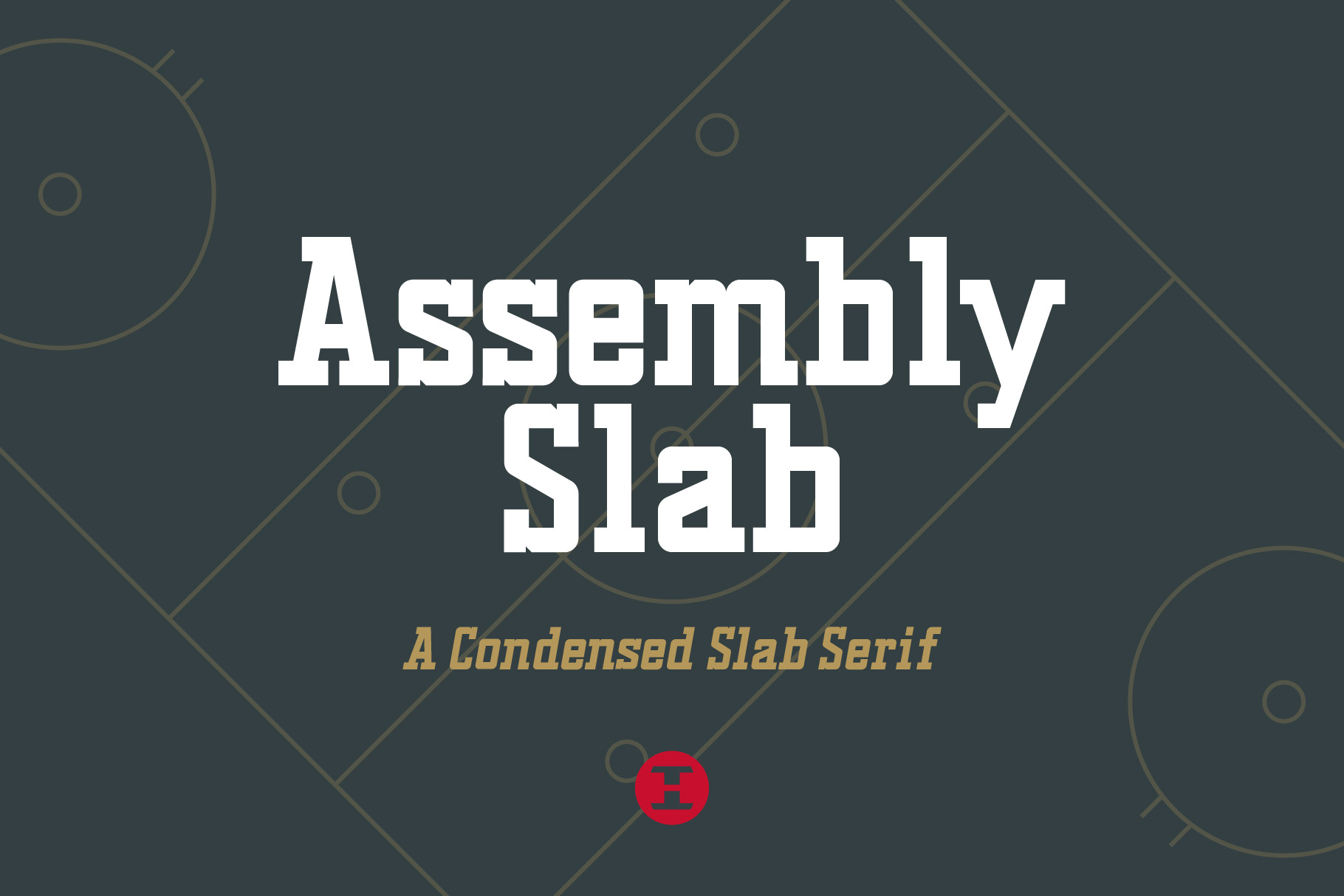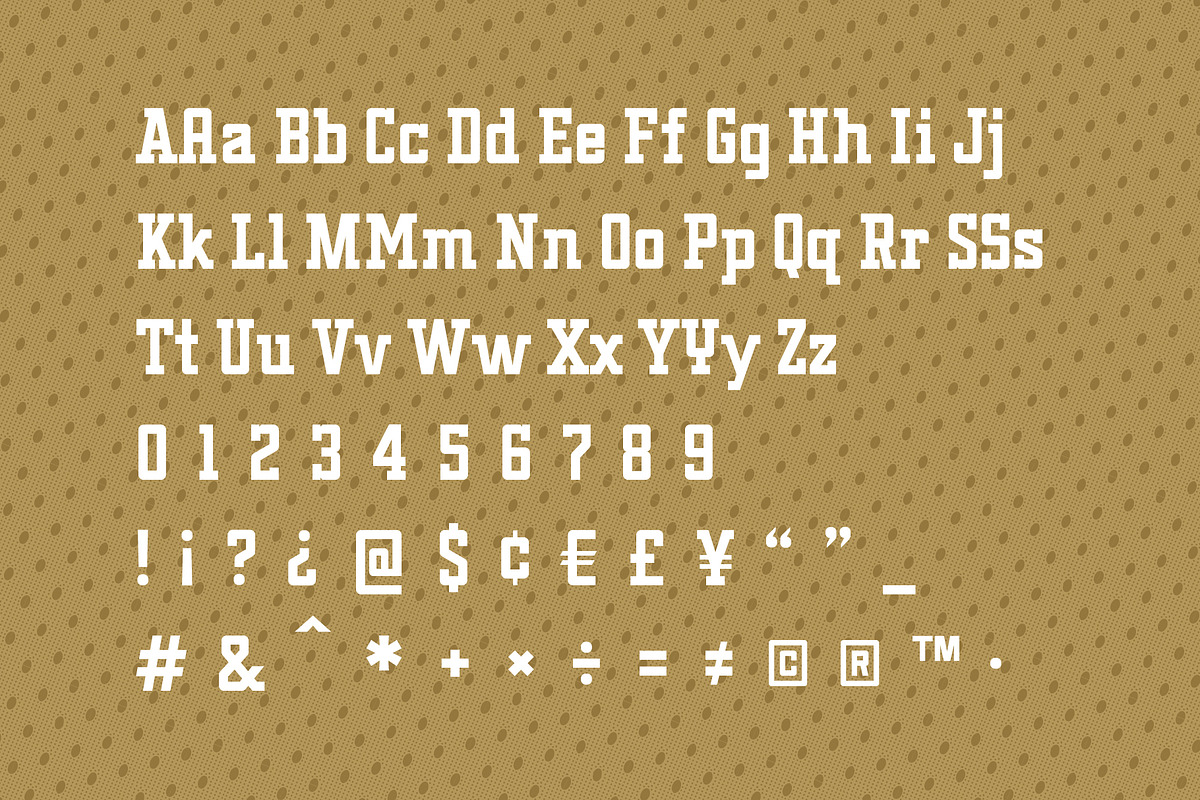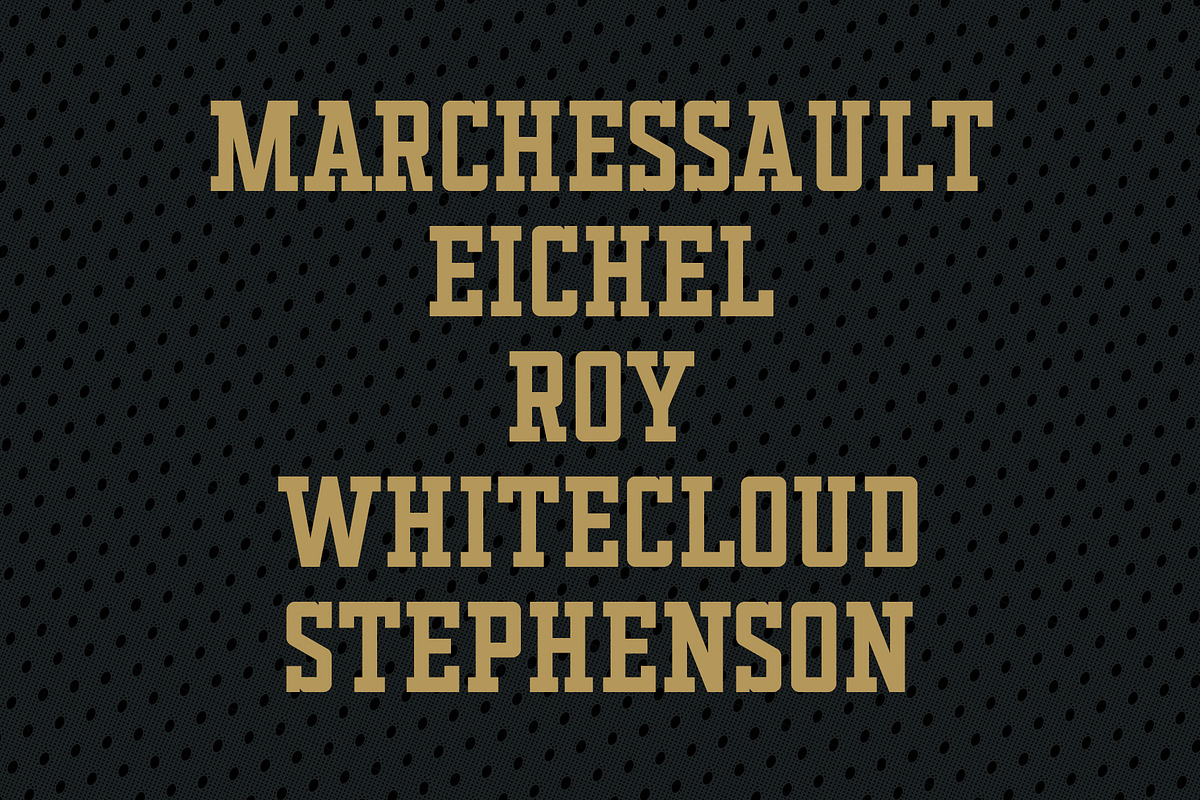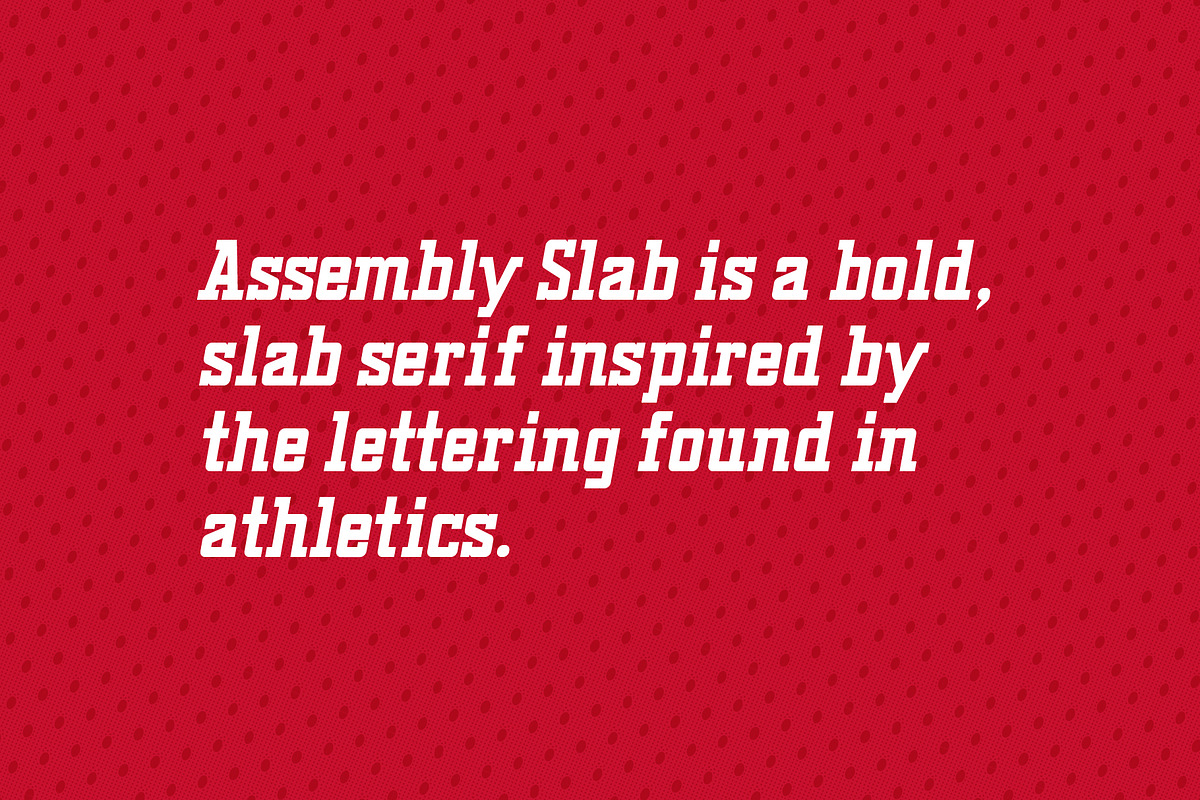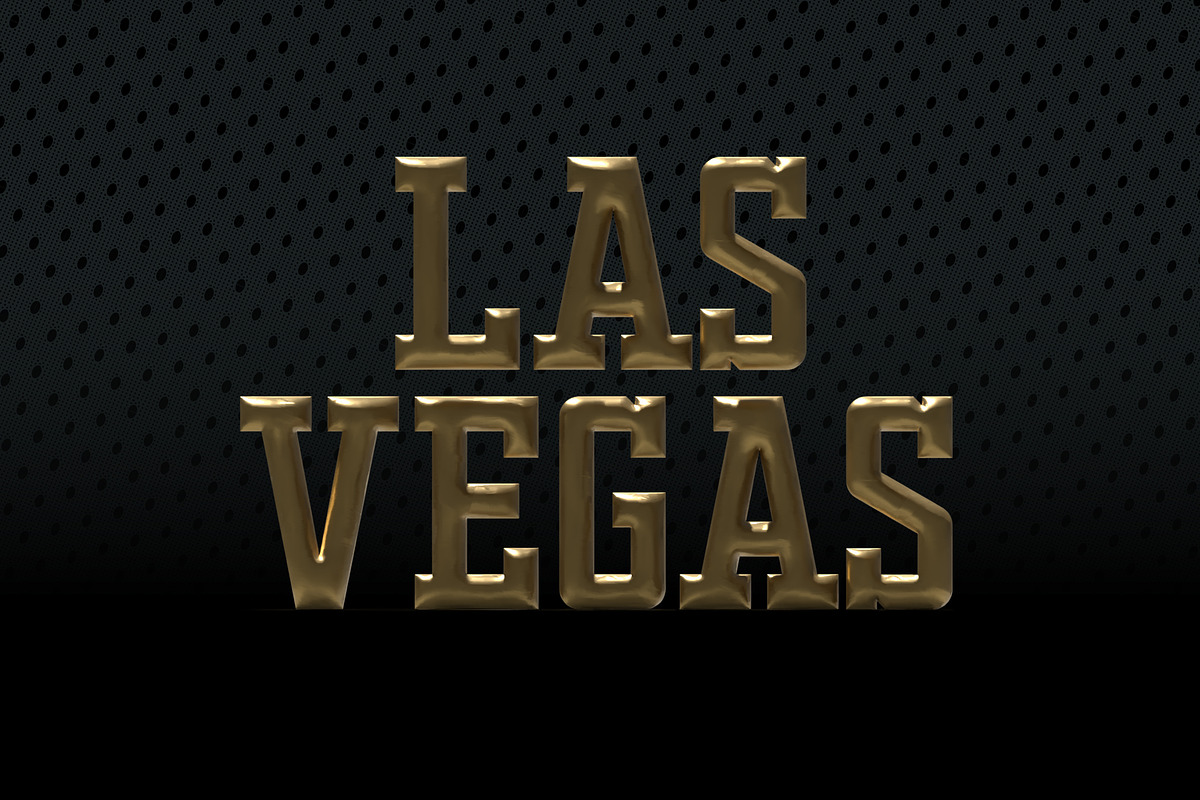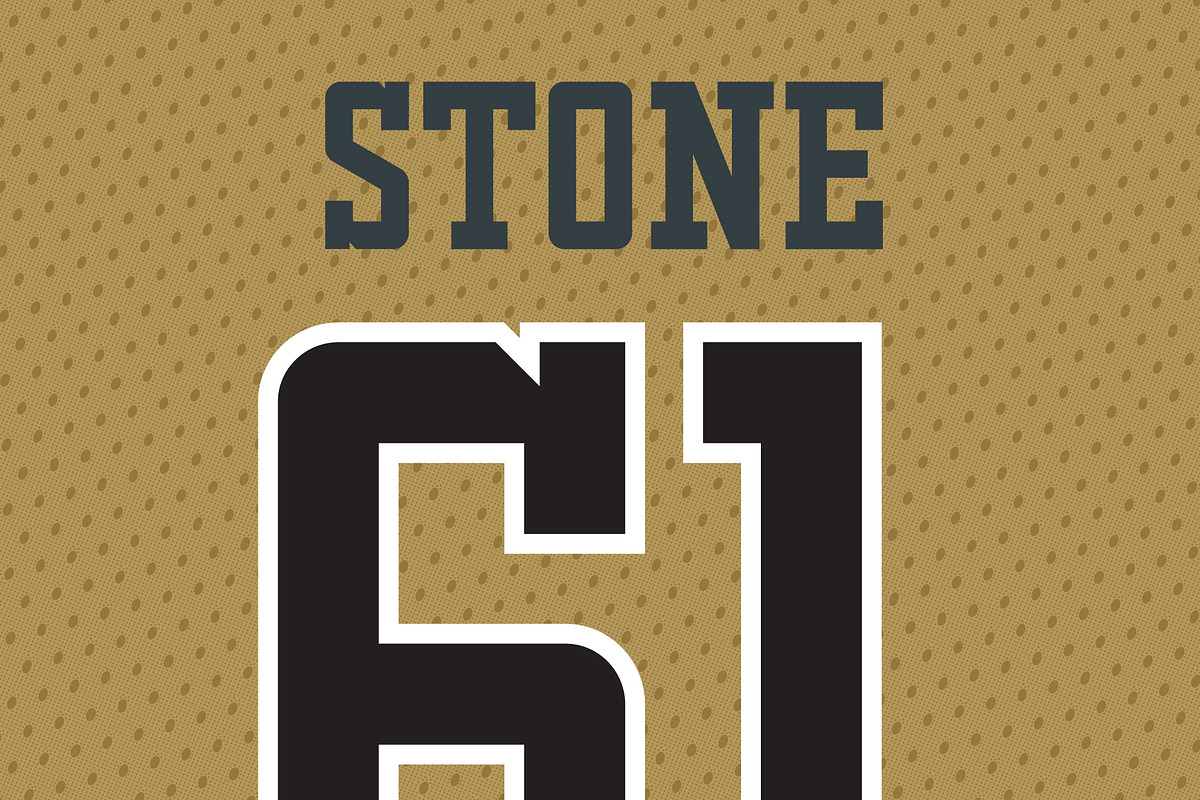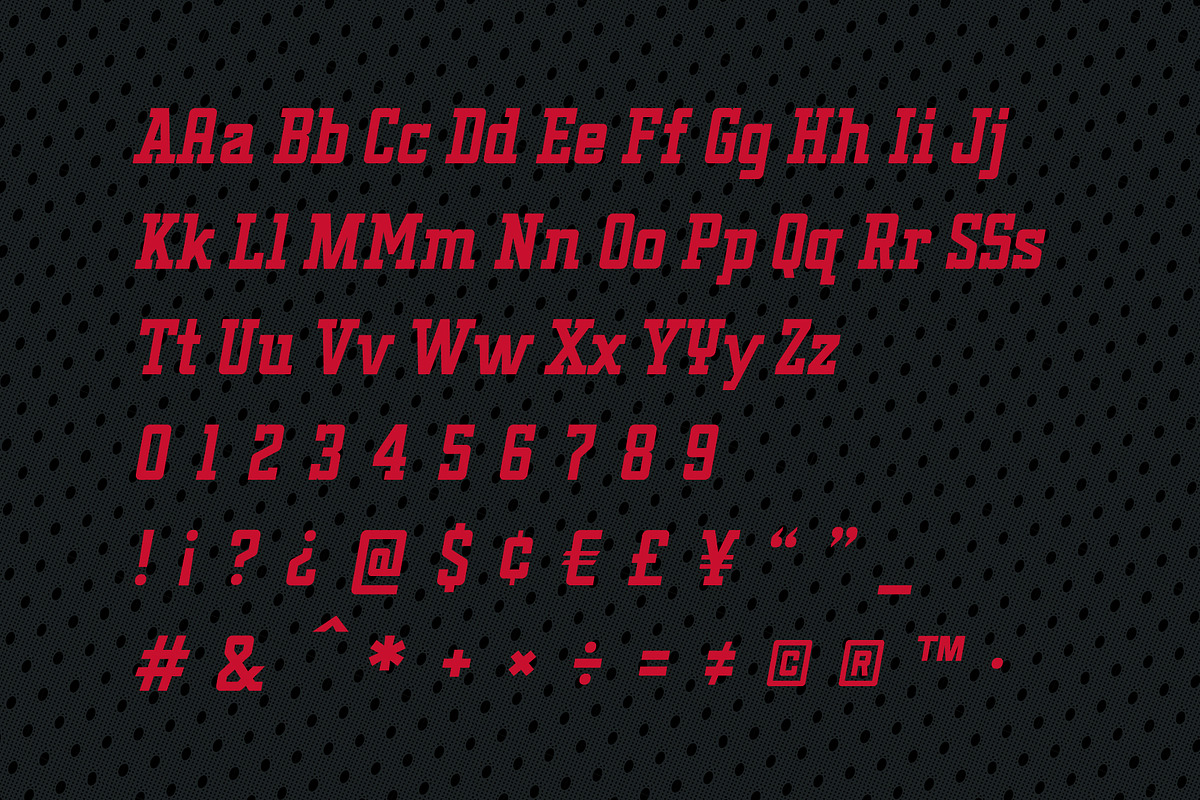
Assembly Slab - Serif Font
Assembly Slab is the slab serif version of Assembly Regular. It’s fun and chunky, with some added movement found in the italic style.
Assembly Slab is a condensed slab serif typeface inspired by vintage lettering found in athletics. While it may have its origins in sports, it adapts extremely well to other applications, whether it’s an album cover, email header or apparel. The Assembly Slab font also includes a few alternate glyphs to add some variations in your applications.
- 2 Styles - Regular and Italic
- Standard English Alphabet
- Numerals, Currency Symbols, Standard Punctuation, Diacritics